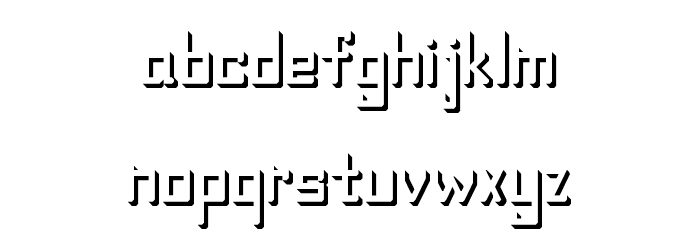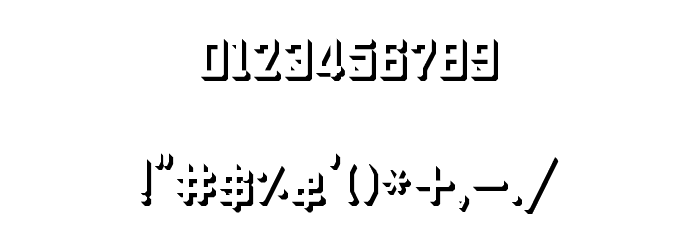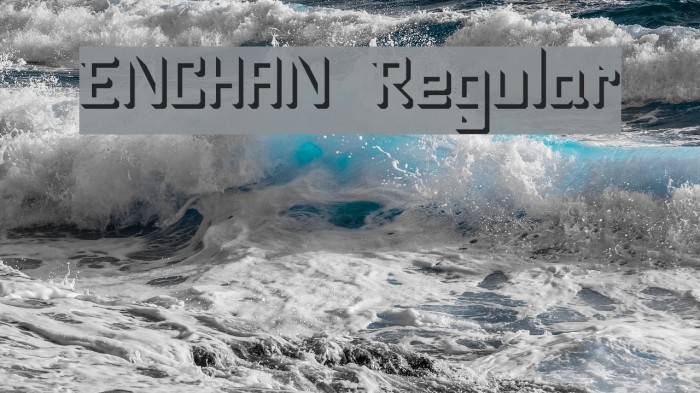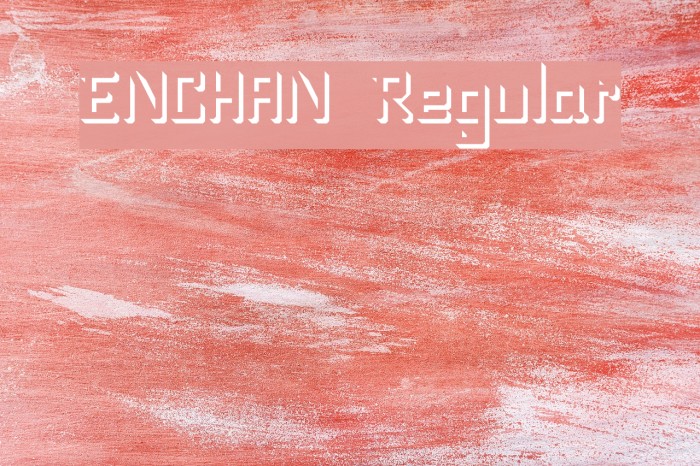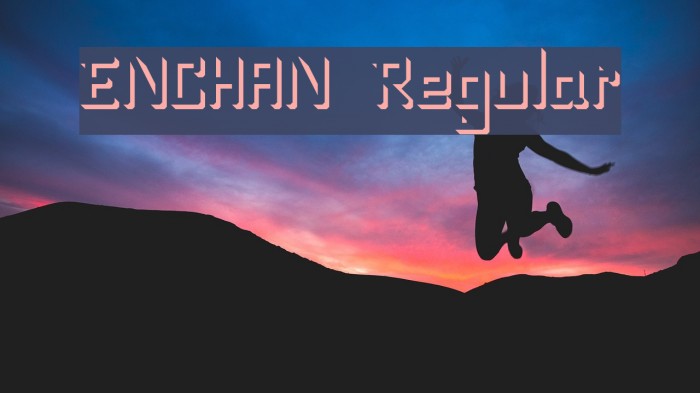
ENCHAN Regular Font
This font features a futuristic and geometric design with a distinct stencil-like appearance. The characters are constructed with sharp angles and clean lines, giving it a modern and technical feel. The uppercase and lowercase letters maintain a consistent style, with unique cutouts that add an industrial touch. The numerals and special characters follow the same design principles, ensuring uniformity across all glyphs. This font is ideal for projects that require a bold and innovative look, such as technology branding or sci-fi themed designs.
A futuristic, geometric font with a stencil-like appearance and sharp angles.
- Proposed Projects: Ideal for technology branding, sci-fi themed designs, and modern advertising.